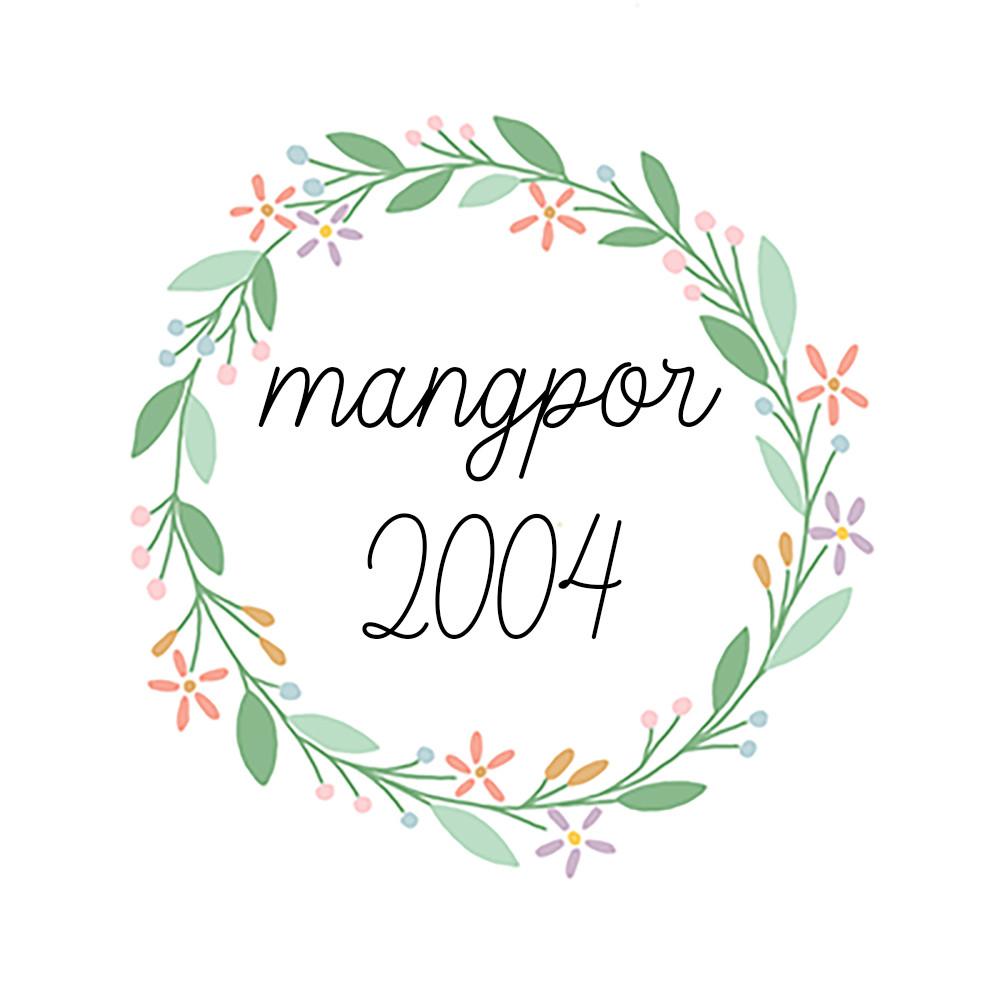
Lilani Font Description
Lilani is a cute minimalist handwritten font perfect for Cricut projects, design, logos, branding, decor, mugs, pantry labels, wedding invitations, stickers, business cards, greeting cards, posters, social media, planner prints, and more! Its natural and unique style makes it incredibly fitting to a large pool of designs. The only limit is your imagination!